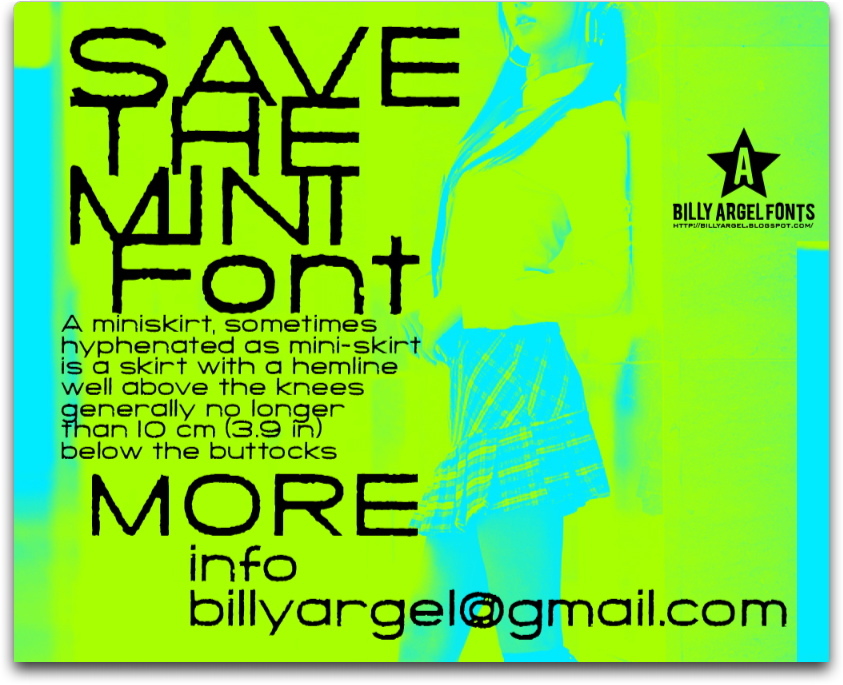
Save the Mini by Billy Argel is a free graffiti font with wiry, marker-drawn lettering and an uneven finish. Rounded forms buckle slightly instead of following clean geometry. Its wobble feels genuinely handmade.
Music posters are its strongest setting, particularly for punk, indie, or garage acts. It also suits album covers and streetwear graphics, where the rough contours echo photocopied artwork and loose illustration. The lettering is most convincing as a scrappy, informal poster title.